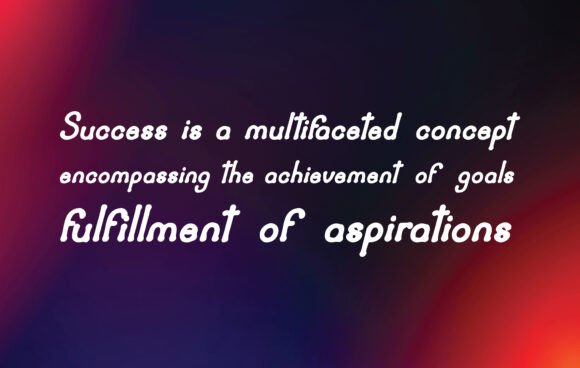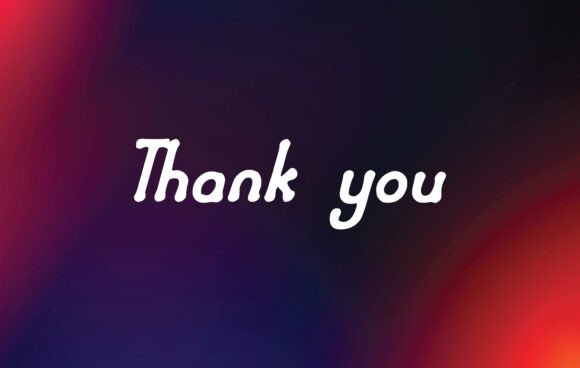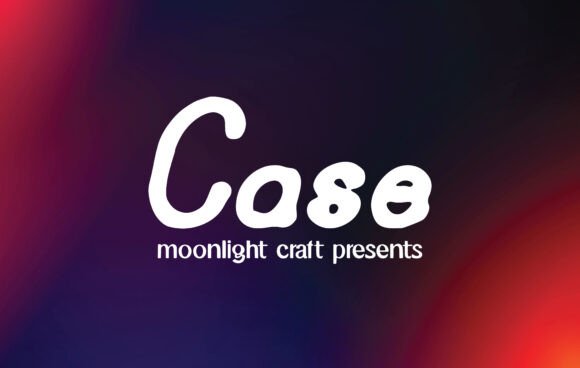
Introducing Case Font: Elevate Your Designs with Elegance and Sophistication
In the world of typography, a font can make or break a design. For designers and crafters, finding the perfect font that captures the essence of their creative vision is a constant quest. If you’re on the hunt for a font that exudes elegance, sophistication, and a touch of handmade charm, look no further than Case Font. This lovely and beautiful handwritten font is poised to take your designs to new heights, making it an indispensable tool in your creative arsenal.
Handwritten fonts have a unique way of adding a personal touch to any design. They evoke emotions, convey warmth, and create a sense of connection with the viewer. Case Font, with its delicate strokes and whimsical flair, embodies the essence of handwritten typography. Its beauty lies in its imperfections, making it a perfect choice for designers who want to infuse their work with a sense of authenticity and character.
Unleash Your Creativity with Case Font
Case Font is more than just a pretty face; it’s a versatile tool that can elevate a wide range of design projects. Whether you’re creating eye-catching logos, branding materials, or inspirational quotes, this font is the perfect choice. Its elegant and sophisticated aesthetic ensures that your designs will stand out from the crowd, making it an excellent option for:
- Logos: Create a lasting impression with a logo that exudes professionalism and style.
- Branding: Develop a consistent visual identity that resonates with your target audience.
- Quotes: Add a touch of elegance to your inspirational quotes and make them truly unforgettable.
What Makes Case Font So Special?
So, what sets Case Font apart from other fonts in the market? Here are a few reasons why designers and crafters are raving about this beautiful handwritten font:
- Unique Character: Case Font boasts a distinctive character that is both elegant and playful.
- Versatility: This font can be used for a wide range of design projects, from logos and branding to quotes and more.
- Easy to Read: Despite its elegant nature, Case Font is surprisingly easy to read, making it perfect for body text and captions.
- Highly Customizable: With Case Font, you can experiment with different colors, textures, and effects to create a unique look that suits your design style.
Tips for Using Case Font Effectively
To get the most out of Case Font, here are a few tips to keep in mind:
- Pair it with Neutrals: Case Font pairs beautifully with neutral colors like black, white, and gray. Try combining it with bold colors to create a striking contrast.
- Experiment with Textures: Add a touch of whimsy to your designs by experimenting with different textures and patterns.
- Play with Sizes: Don’t be afraid to experiment with different font sizes to create visual interest and hierarchy in your designs.
In conclusion, Case Font is a beautiful and elegant handwritten font that has the potential to elevate your designs to new heights. Its unique character, versatility, and ease of use make it an excellent choice for designers and crafters looking to add a touch of sophistication and elegance to their work. Whether you’re creating logos, branding materials, or inspirational quotes, Case Font is sure to become a staple in your design arsenal.